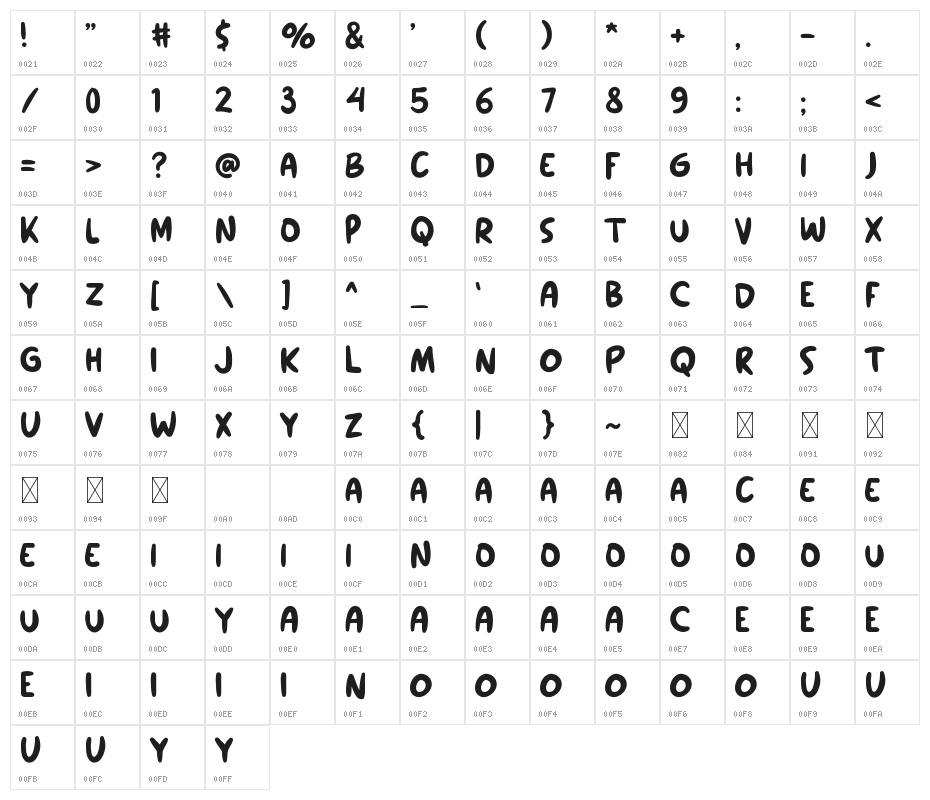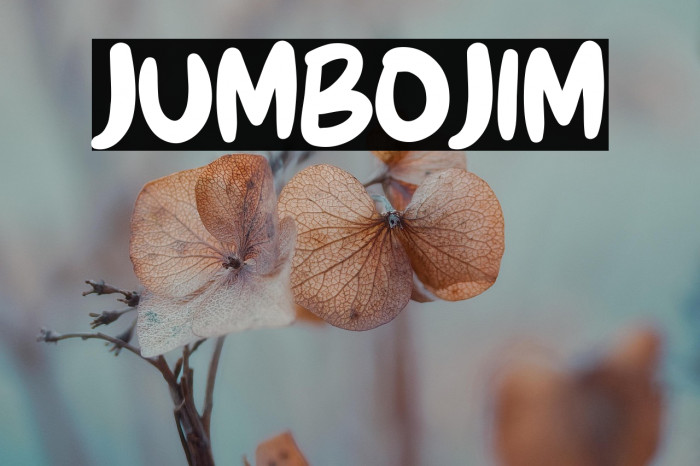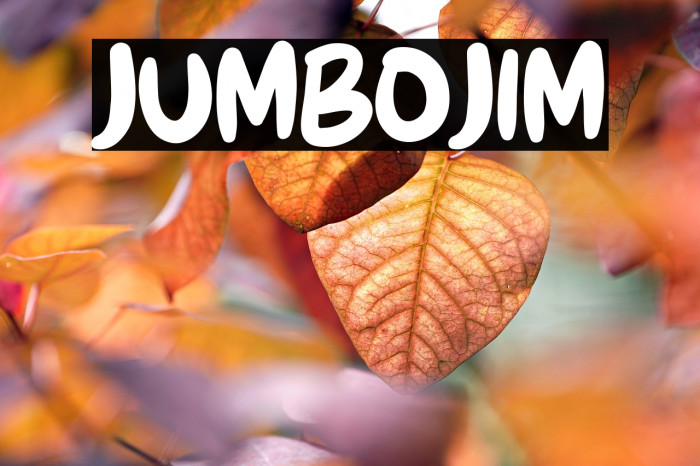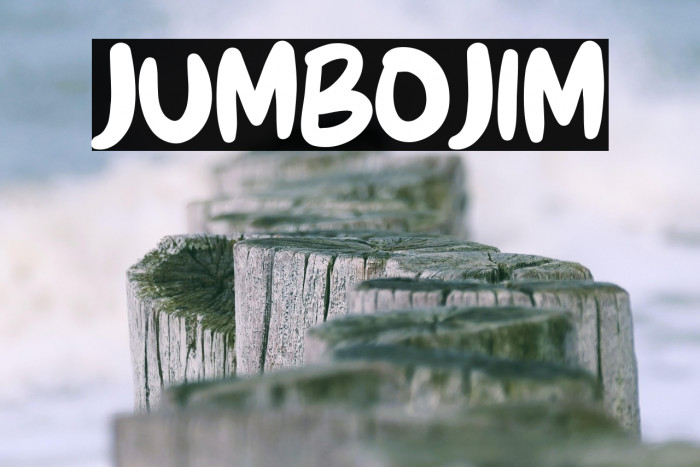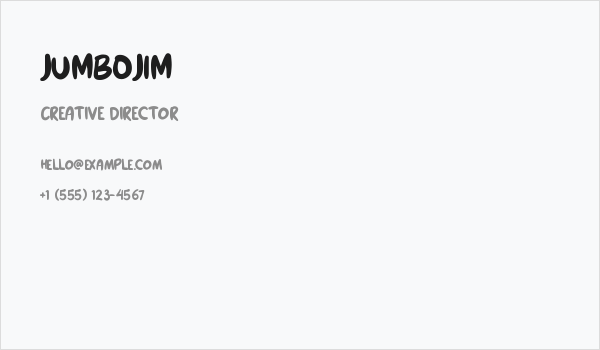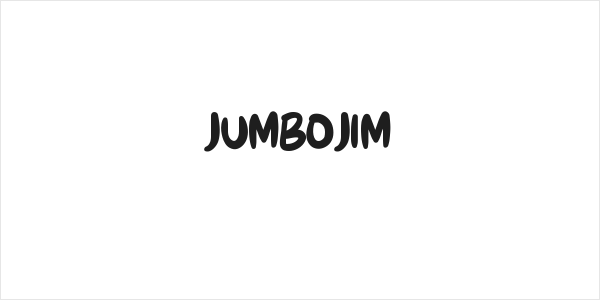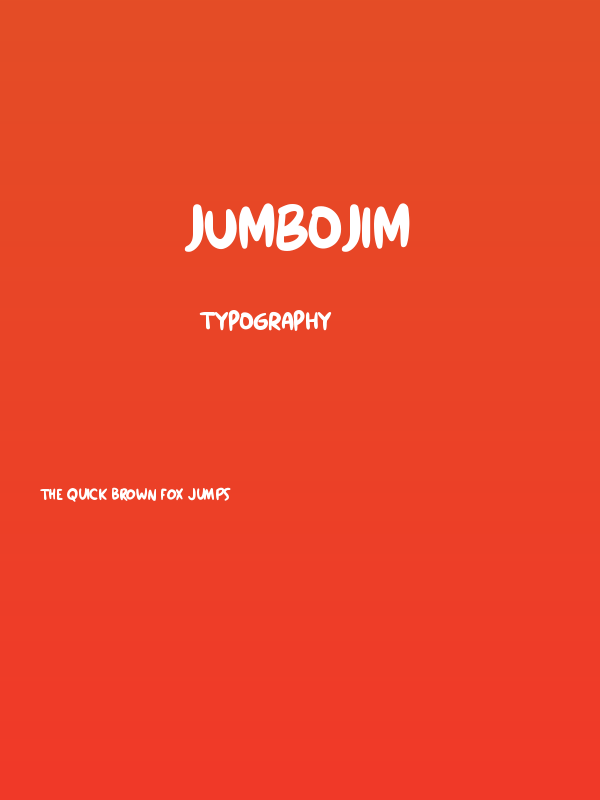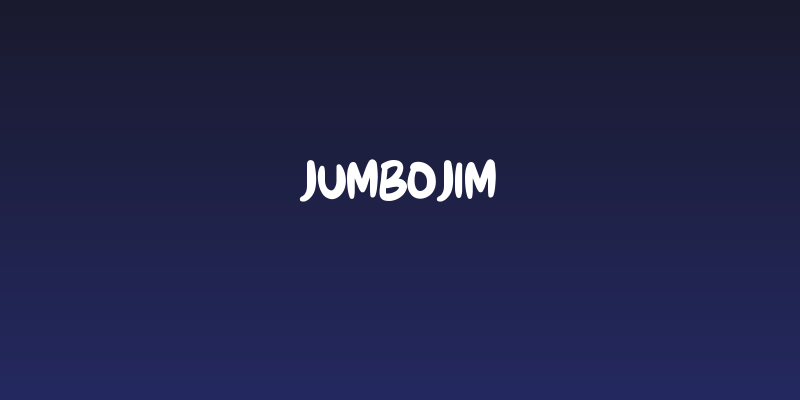
JUMBOJIM Font
JUMBOJIM Description
This playful and bold font features rounded, thick strokes that give it a friendly and approachable appearance. The characters are slightly irregular, adding a hand-drawn feel that enhances its casual and informal style. The uppercase and lowercase letters maintain a consistent weight, contributing to a cohesive look. The numerals and special characters are designed with the same playful aesthetic, making them suitable for a variety of creative applications. The font's overall design is both modern and whimsical, making it ideal for projects that require a touch of fun and personality.
| Overall Style | Playful, Modern, Whimsical |
| Proposed Projects | Ideal for children's books, playful branding, casual invitations, and creative posters. |